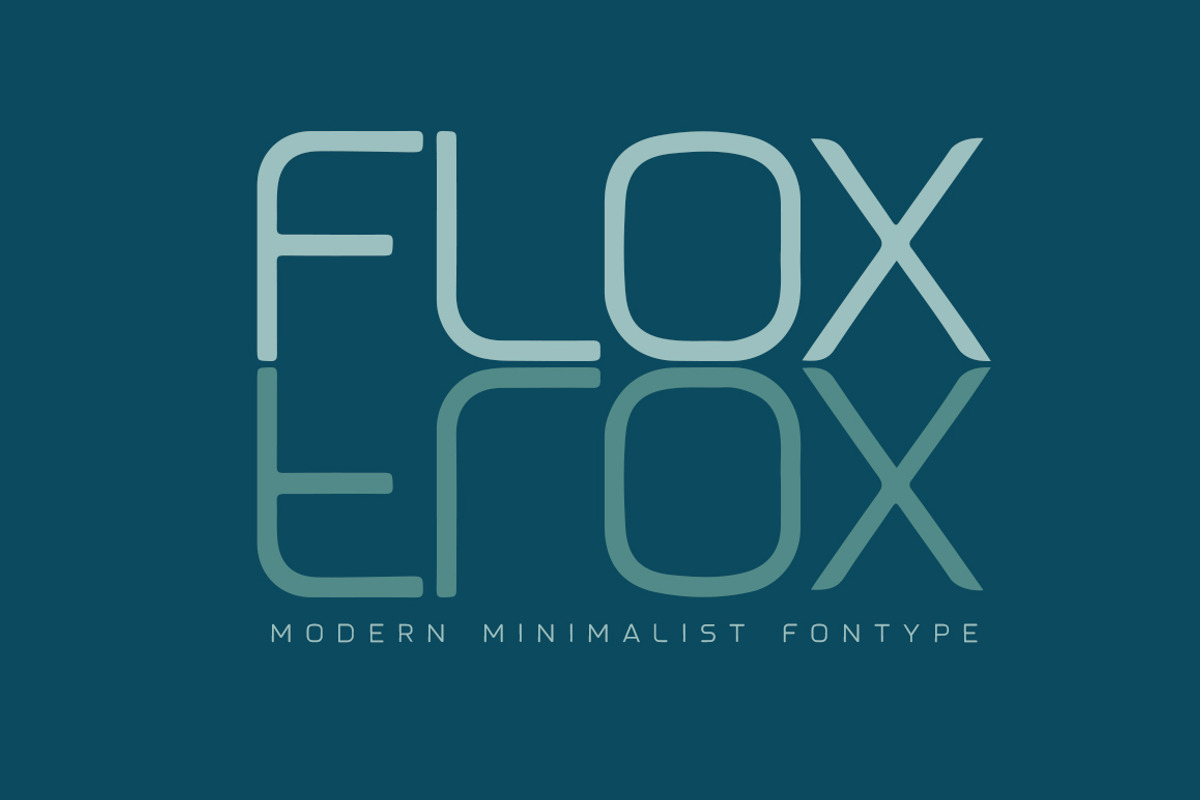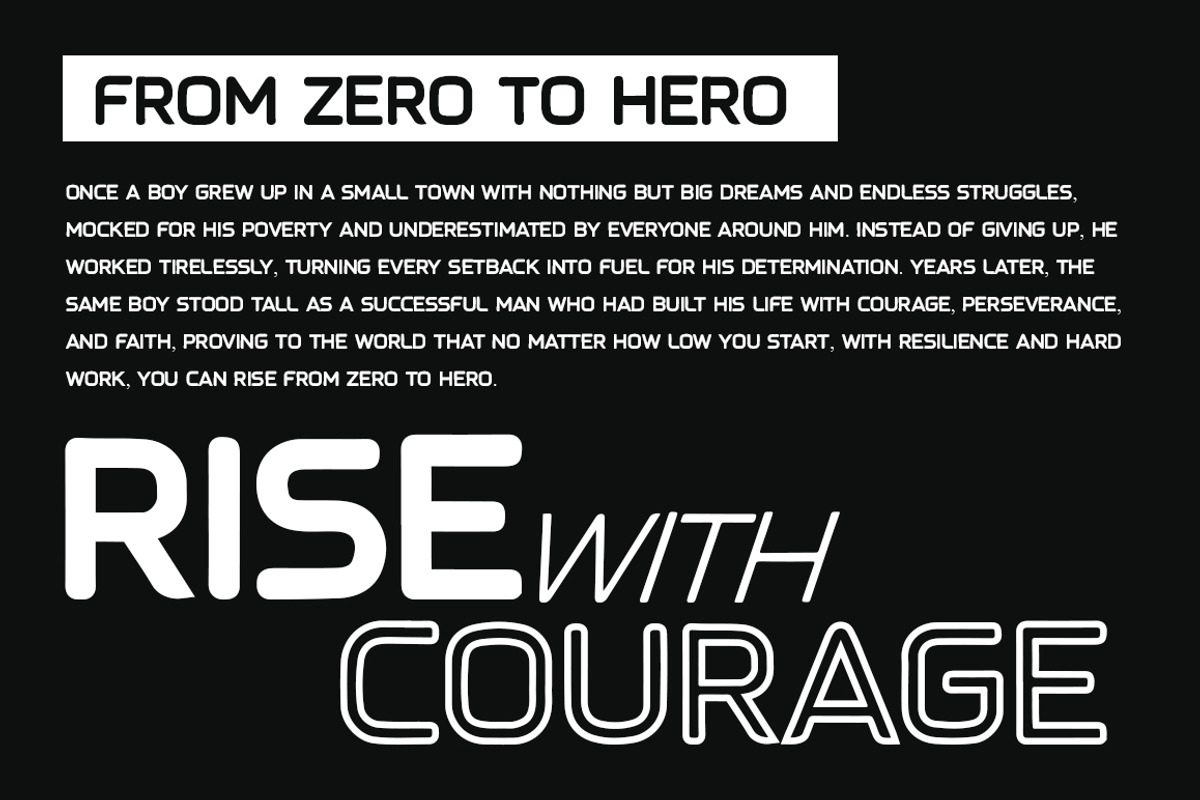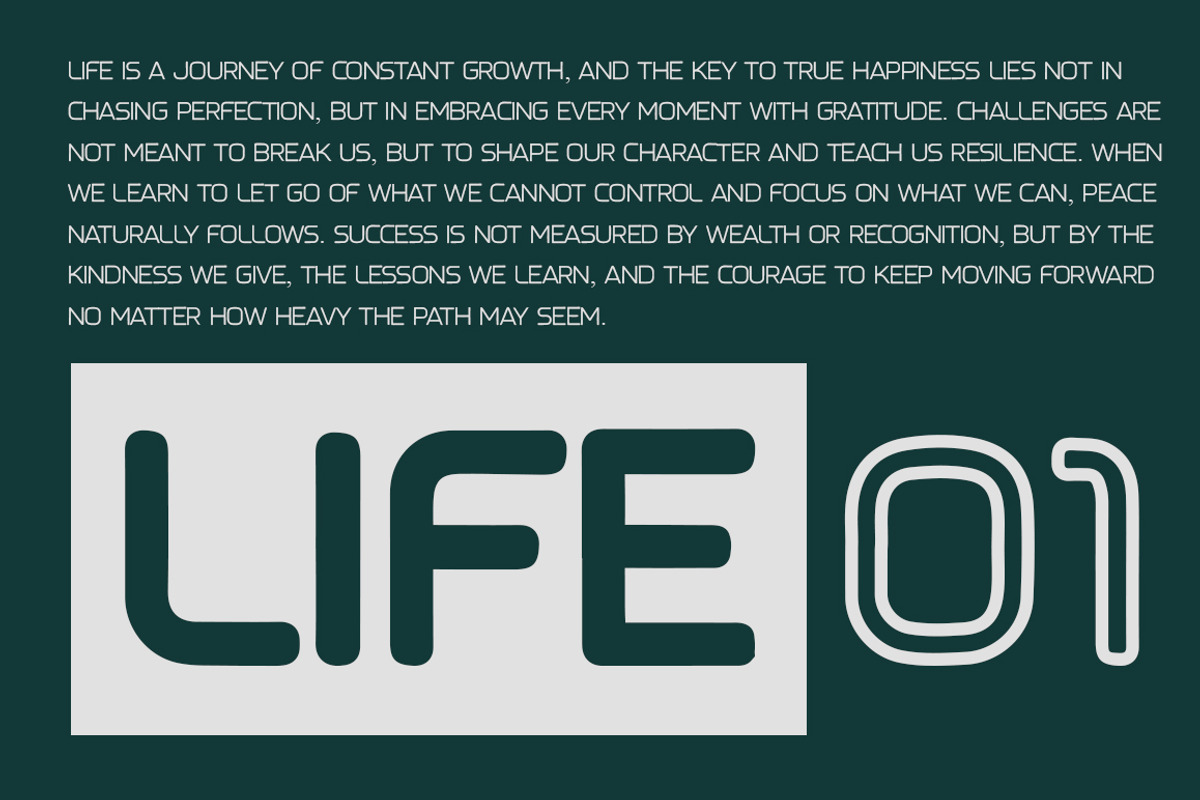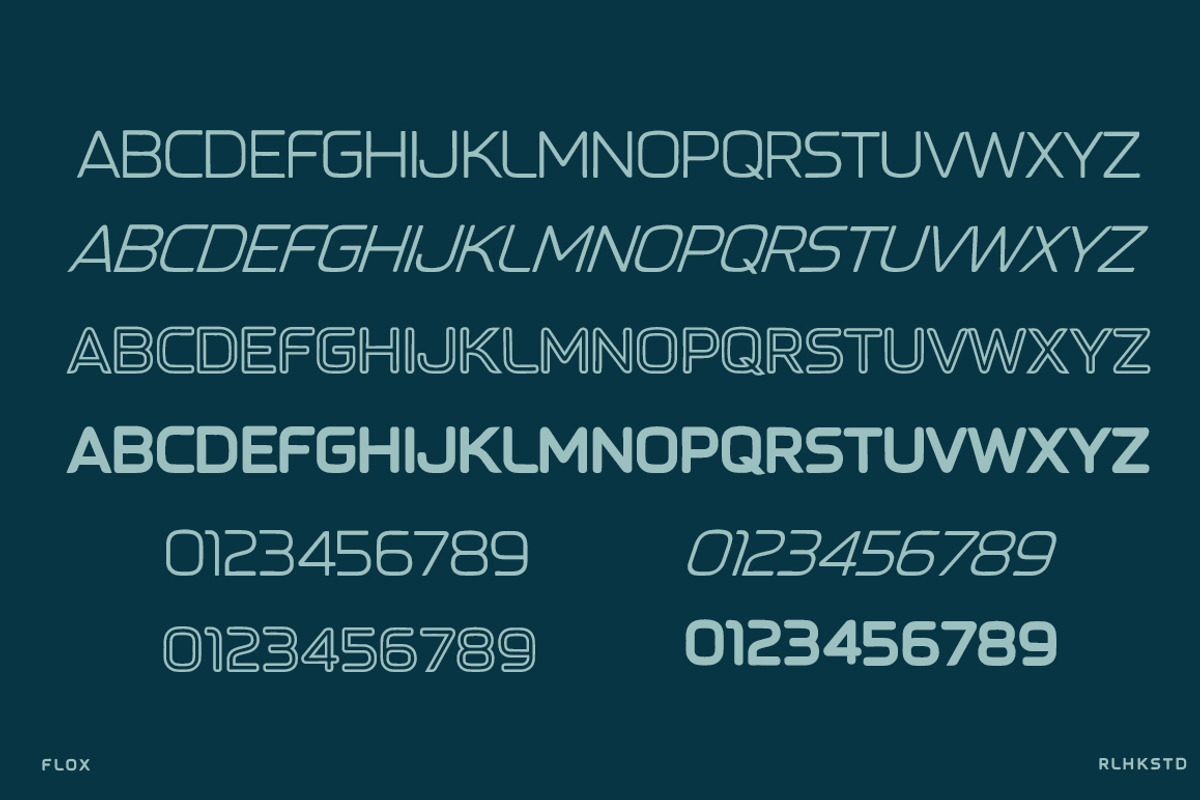
Flox
Flox is a modern minimalist font with sleek, clean, and refined character shapes. Its design is simple yet elegant, combining smooth straight lines with balanced geometric details. With a futuristic and professional feel, it is ideal for brand identity, editorial design, product packaging, and digital interfaces. Clean and stylish, Flox delivers a strong modern impression while maintaining simplicity.